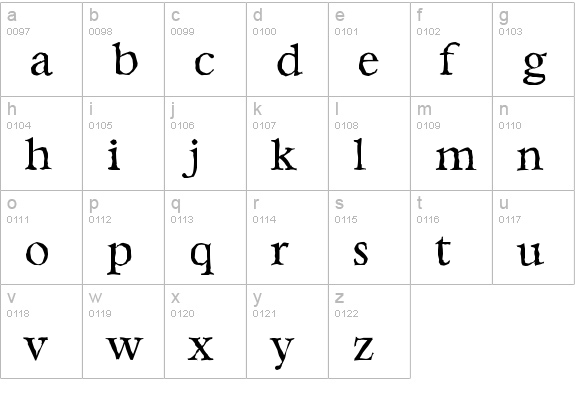
BernsteinAntique-Regular Font Details
BernsteinAntique-Regular is the standard, neutral variant in the BernsteinAntique typeface family \xE2\x80\x94 well suited to general body text, paragraphs, and standard typographic work.
BernsteinAntique-Regular is a classic and elegant font that exudes a sense of nostalgia and sophistication. With its timeless appearance and intricate details, this typeface is perfect for adding a touch of vintage charm to your design projects. The flowing serifs and delicate curves of BernsteinAntique-Regular give it a refined and polished look that is both versatile and eye-catching. Whether you're working on invitations, labels, or branding materials, BernsteinAntique-Regular is sure to make a statement. This font is ideal for projects that require a touch of old-world charm and elegance. Its timeless appeal is perfect for conveying a sense of history and tradition in your designs. The best part? BernsteinAntique-Regular is completely free to download at FontsMarket.com. So go ahead and add this beautiful font to your collection today and elevate your projects with its classic and sophisticated style.